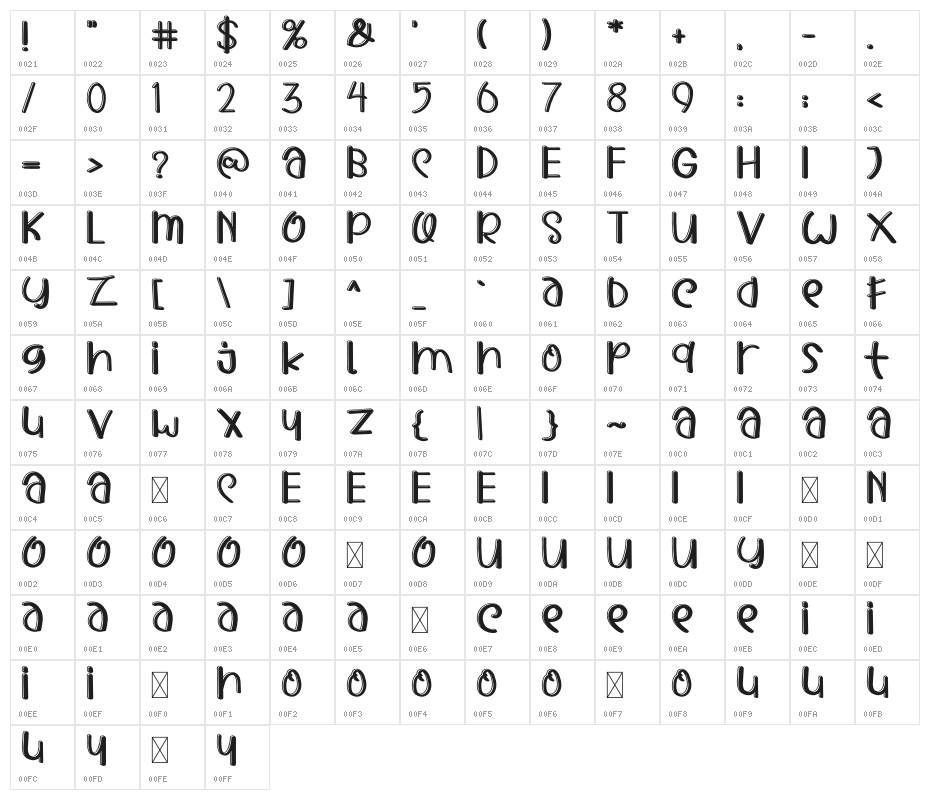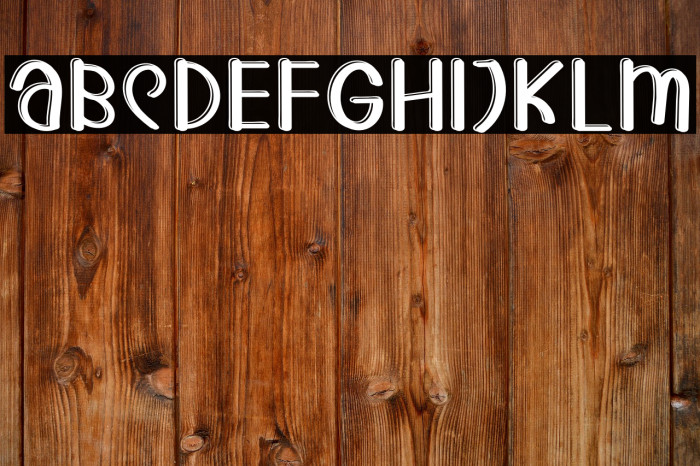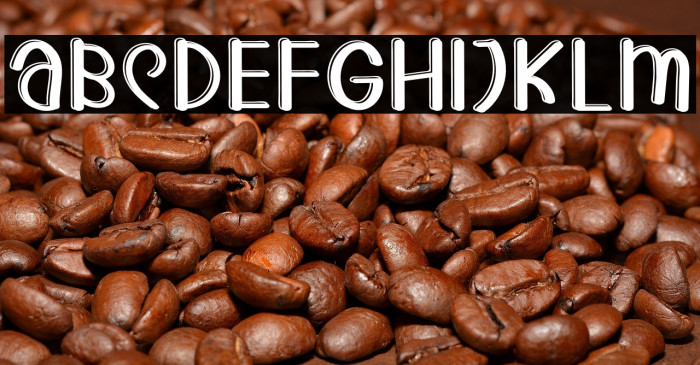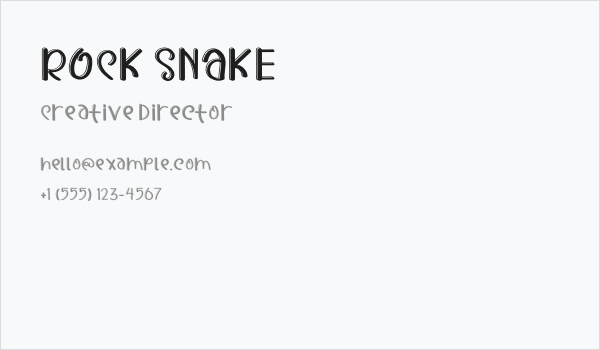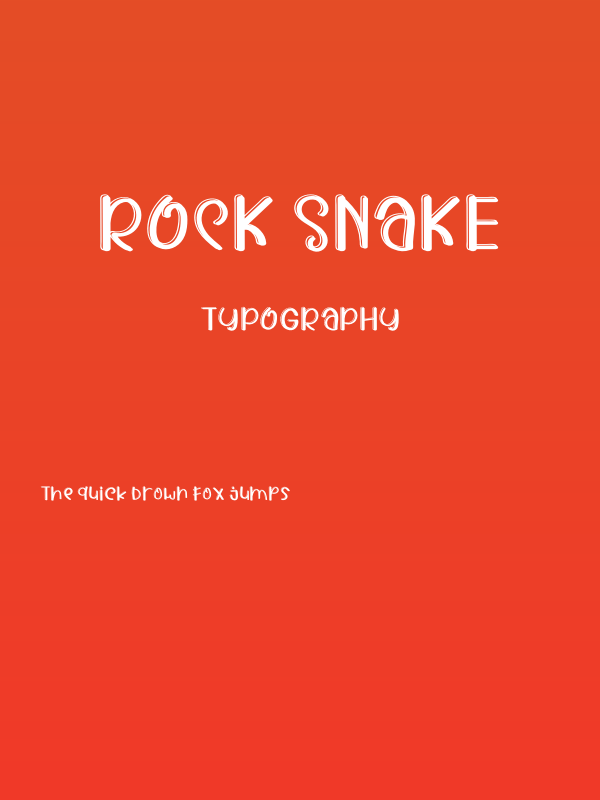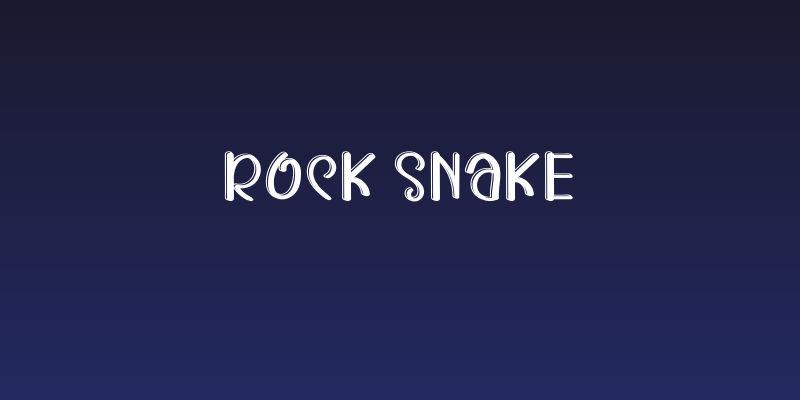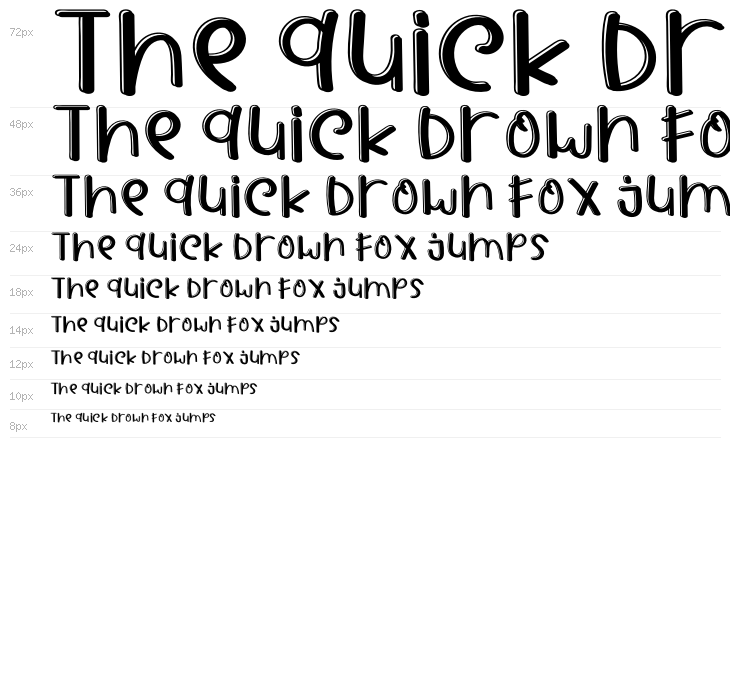
ROCK SNAKE Font
ROCK SNAKE Description
This playful and bold font features a unique, hand-drawn style with a thick, rounded appearance. Each character is crafted with a whimsical touch, giving it a lively and energetic feel. The uppercase and lowercase letters maintain a consistent style, with smooth curves and a slightly irregular shape that adds to its charm. The numbers and special characters follow the same design principles, ensuring a cohesive look across all elements. This font's boldness and distinctive style make it ideal for projects that require a fun and engaging visual impact.
| Proposed Projects | Ideal for children's books, playful branding, posters, and creative invitations. |